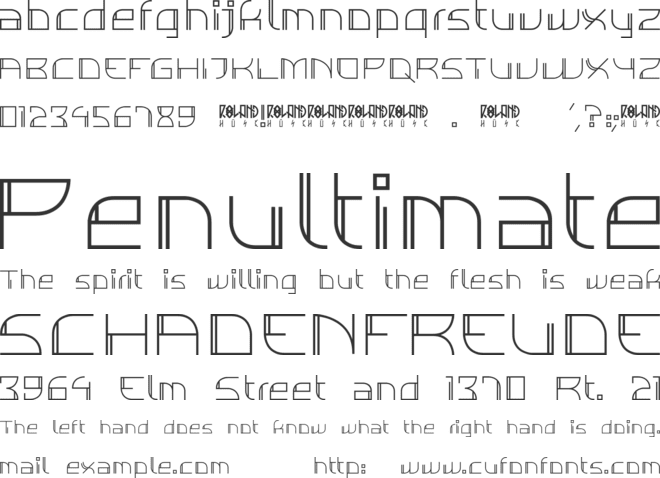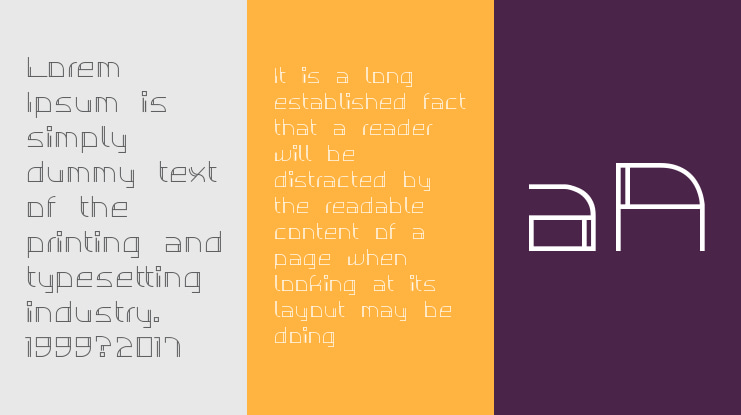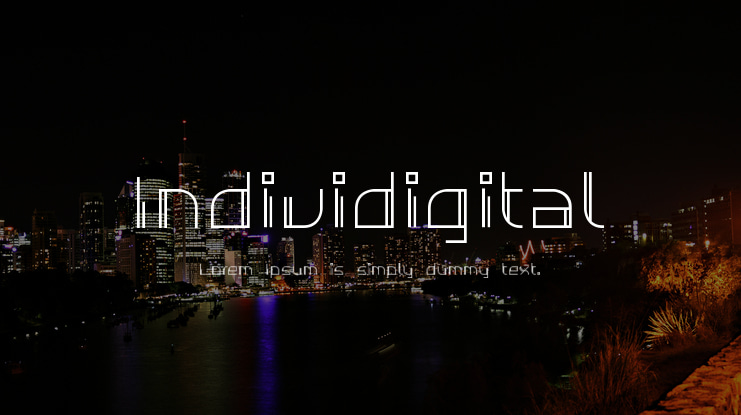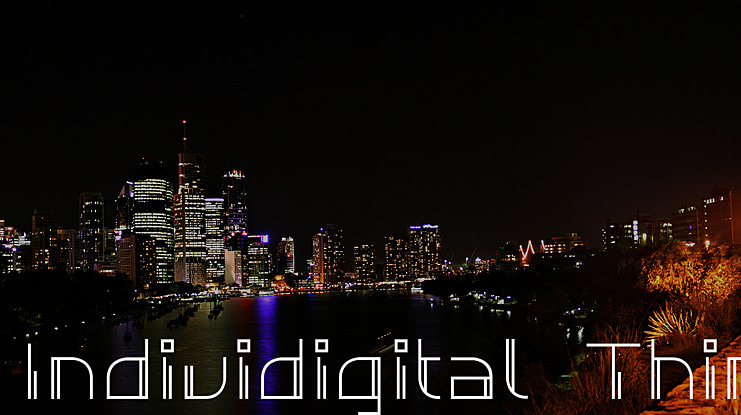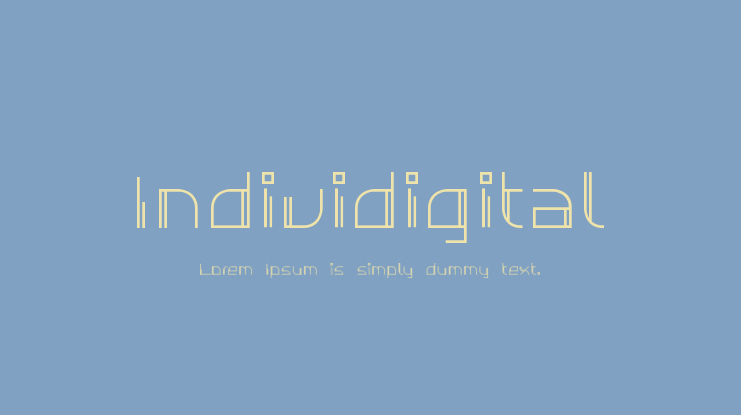
Individigital Font
INDIVIDIGITAL THIN is a version of „Individigital” with decreased weight.Instead of the gaps, I used extra lines to get the digital feel. Any feedback, comment and notice would be appreciated a lot as it may help me keep going on the path of font design.